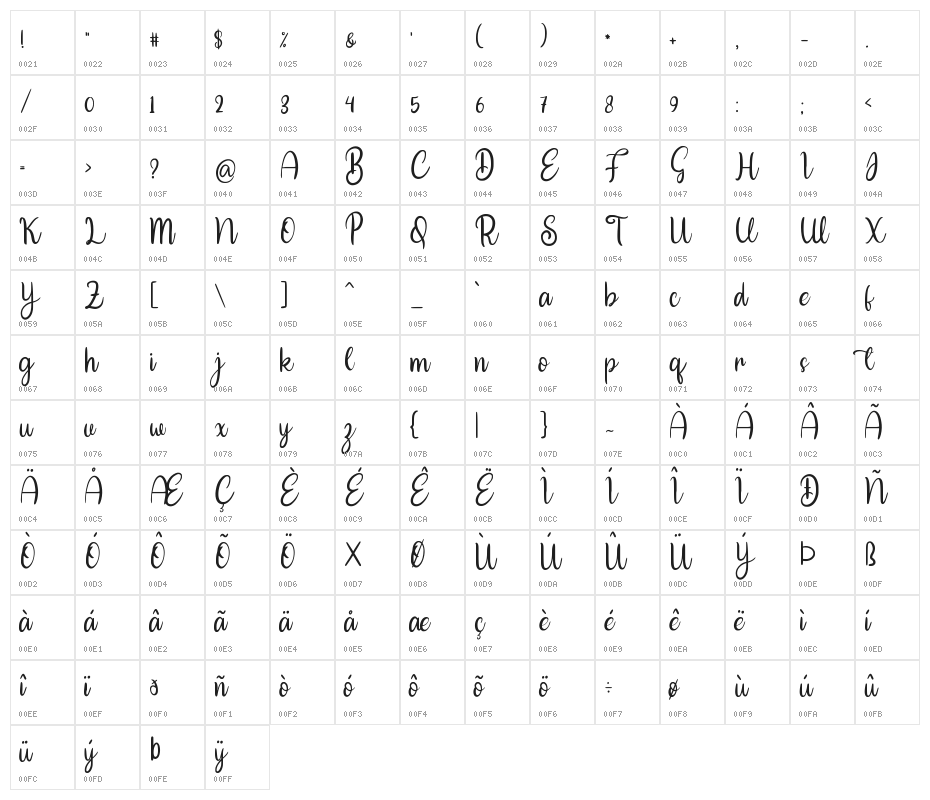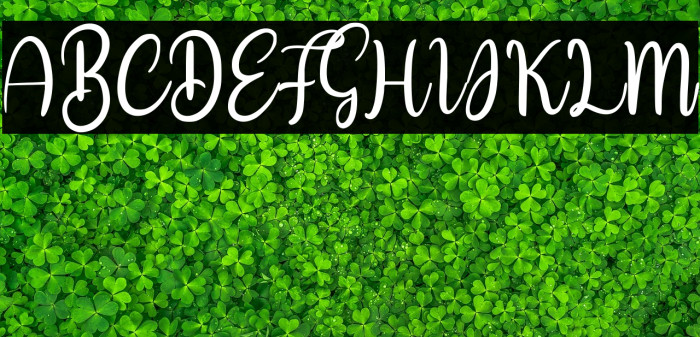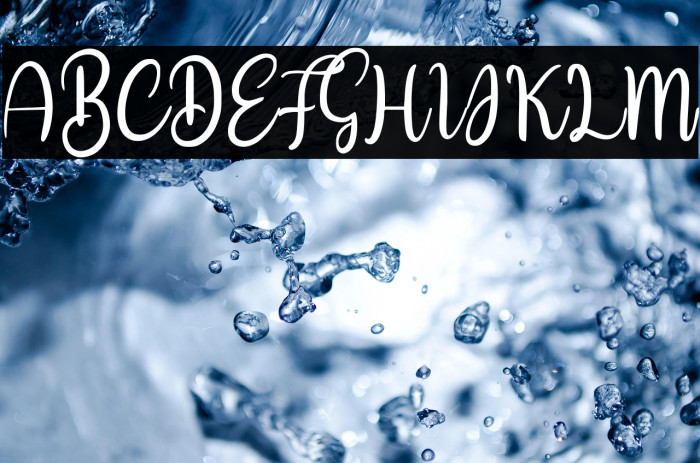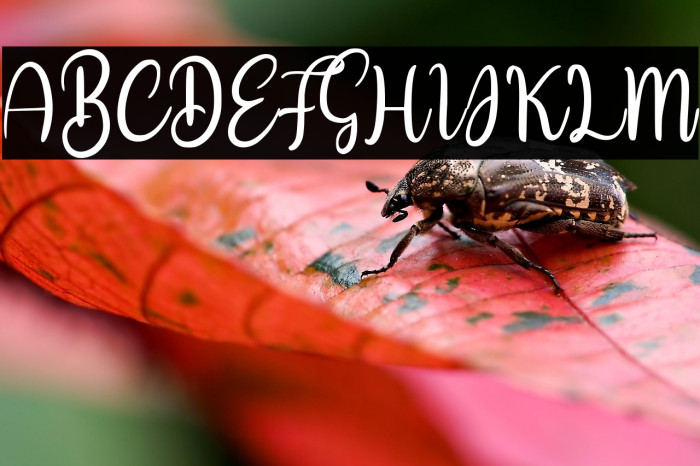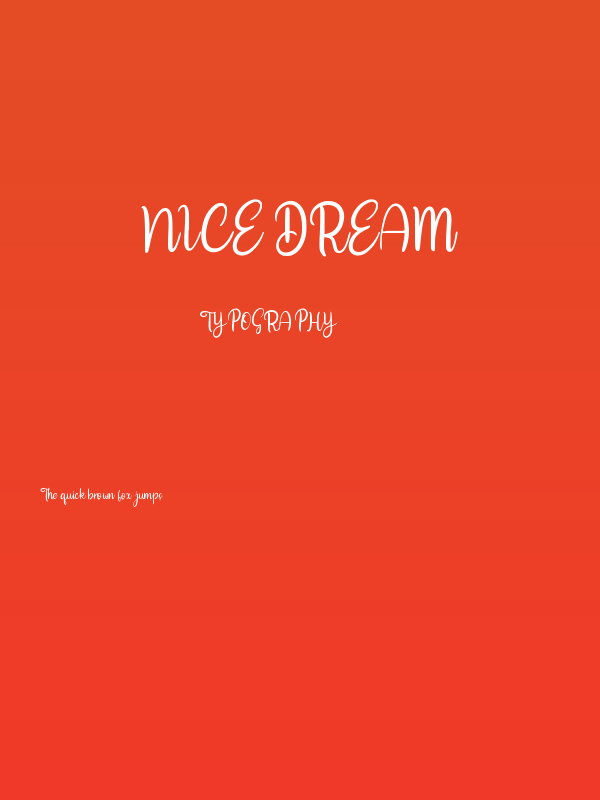
Nice Dream Font
Nice Dream Description
This font features a playful and elegant script style with a handwritten appearance. The uppercase letters are bold and slightly condensed, with a whimsical flair that adds a touch of personality. The lowercase letters are more fluid and connected, creating a smooth flow that enhances readability. Numbers are consistent with the overall style, maintaining the same playful yet elegant feel. Special characters are well-integrated, complementing the font's aesthetic. The strokes are moderately thick, providing a balanced contrast that ensures clarity without sacrificing style. This font is versatile and can be used in various design projects where a touch of elegance and playfulness is desired.
Use CaseLogos, Invitations, Social Media
Proposed ProjectsIdeal for wedding invitations, greeting cards, branding, and social media graphics.